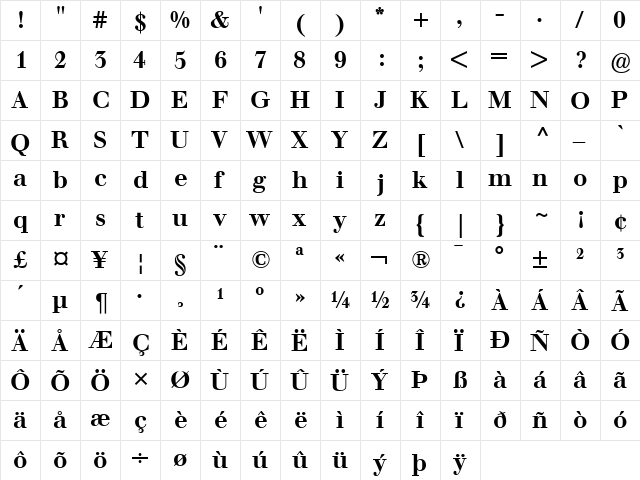
Berthold Walbaum Book Bold
Design Context for Berthold Walbaum Book Typeface
Berthold Walbaum Book takes a measured approach to typography — its balanced proportions and neutral character make it a reliable workhorse for both digital and print work. The heavy weight commands attention and anchors typographic hierarchies.